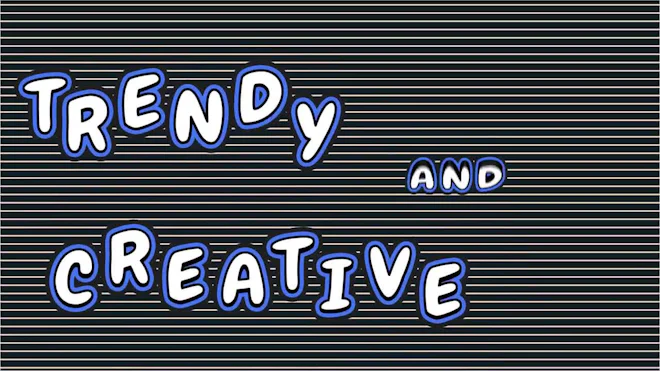
This stock motion graphics video pack includes 36 different clips of blue and white bouncy typefaces on a transparent alpha channel in a seamless loop. Pack includes 26 letters and 10 numbers.